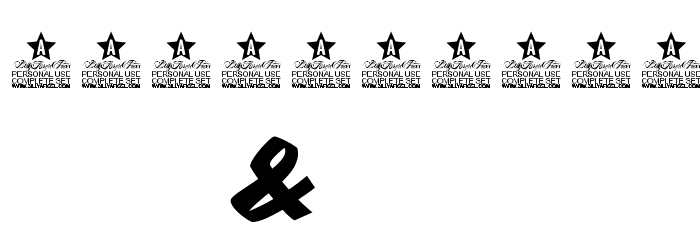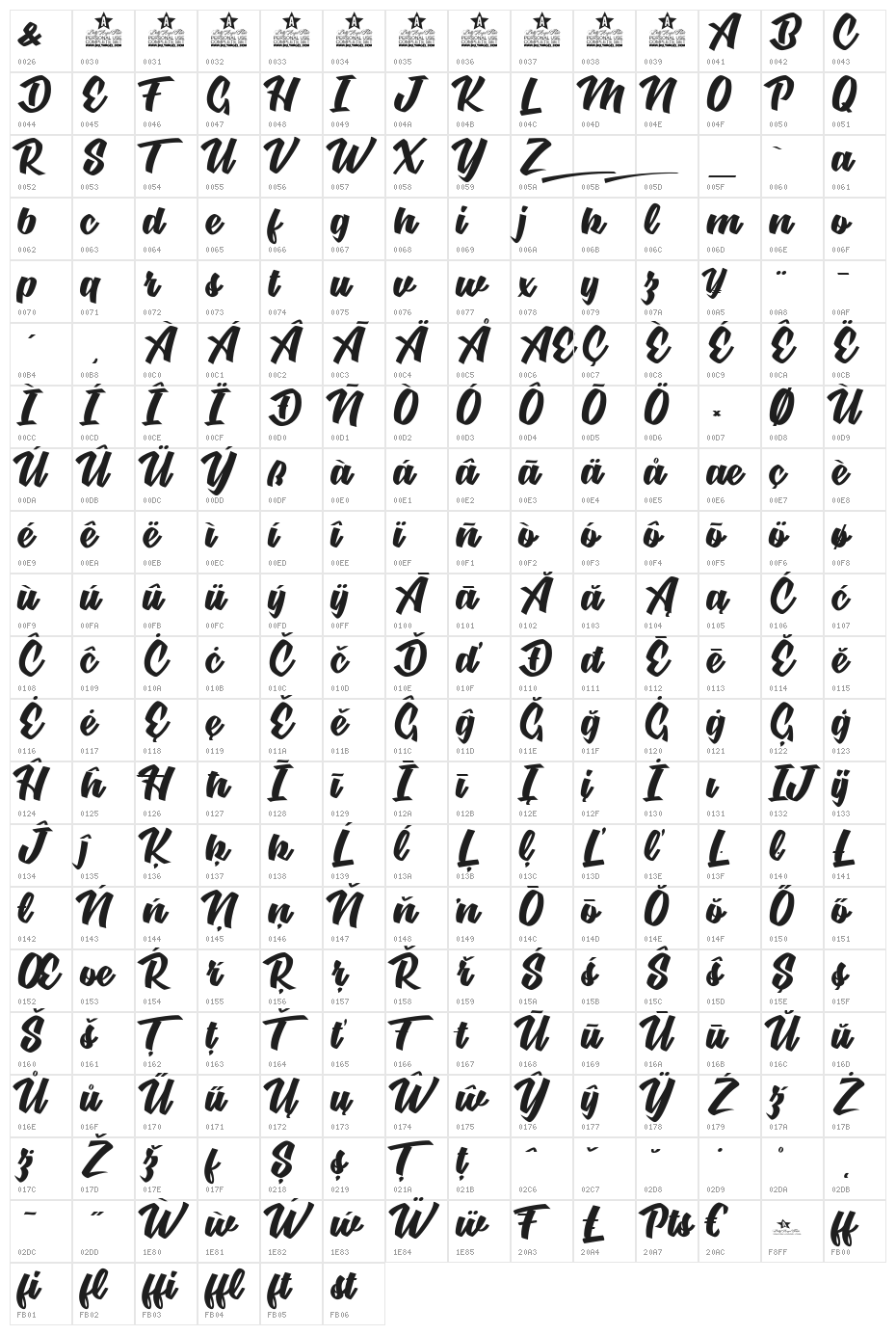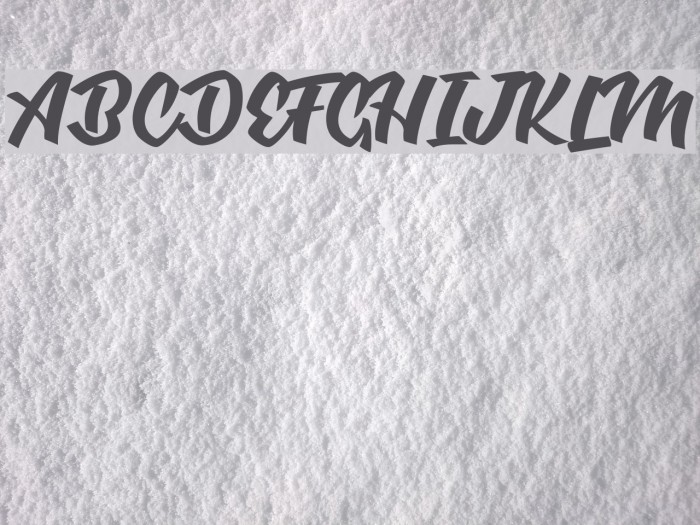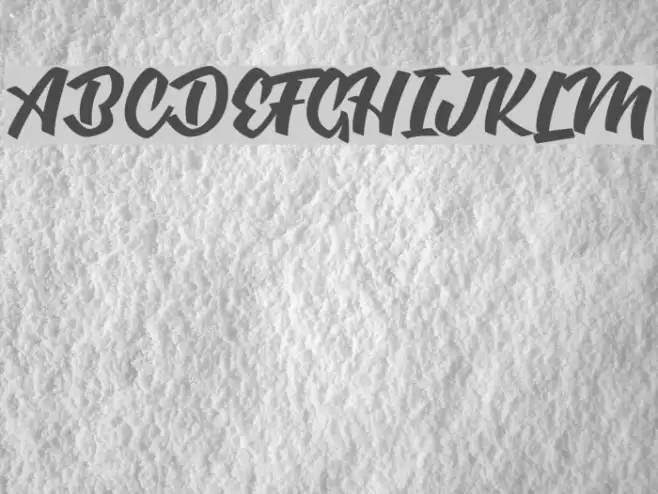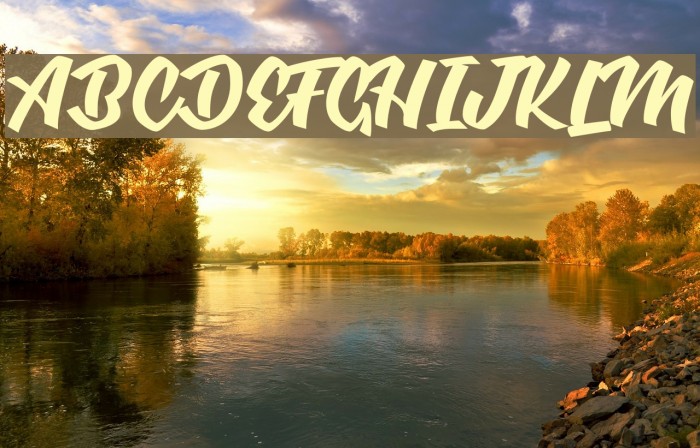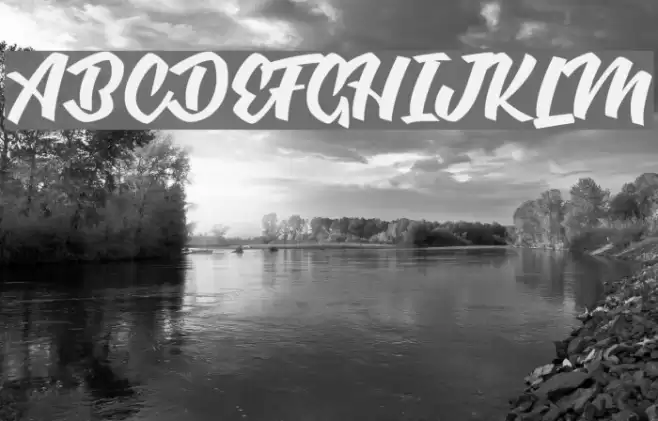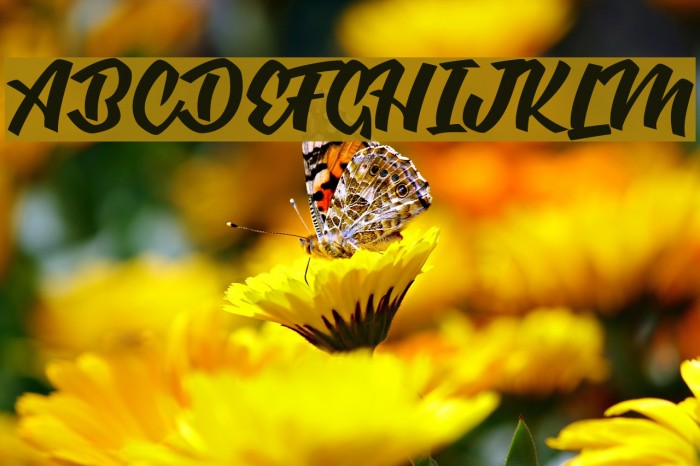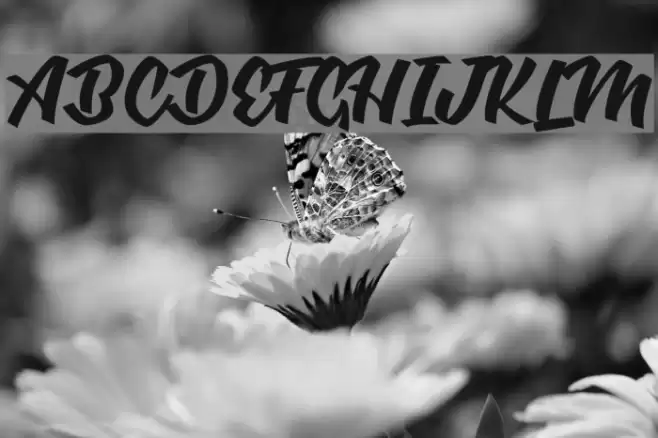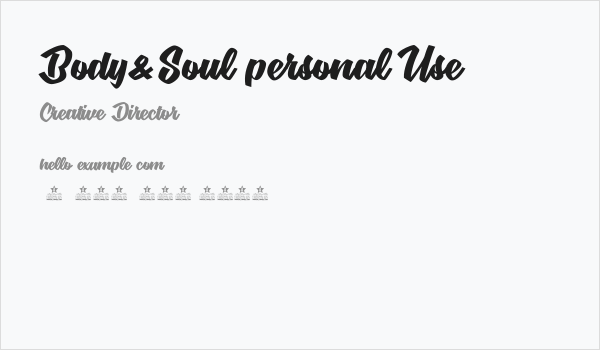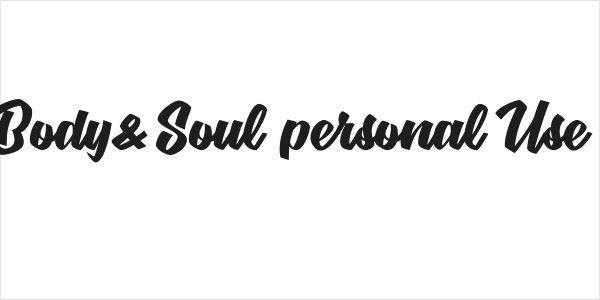
Body&Soul personal Use Font
Body&Soul personal Use Description
This font features a bold, dynamic script style with a modern flair. The characters are designed with a strong, flowing motion that gives a sense of energy and movement. The uppercase letters are bold and slightly slanted, while the lowercase letters maintain a consistent flow with smooth curves and sharp edges. The font includes a full set of uppercase and lowercase letters, numbers, and a selection of special characters. Its bold strokes and fluid design make it ideal for creating eye-catching headlines and logos. The overall appearance is both stylish and assertive, making it suitable for a variety of creative projects.
| Proposed Projects | Ideal for branding, logos, headlines, posters, and social media graphics. |